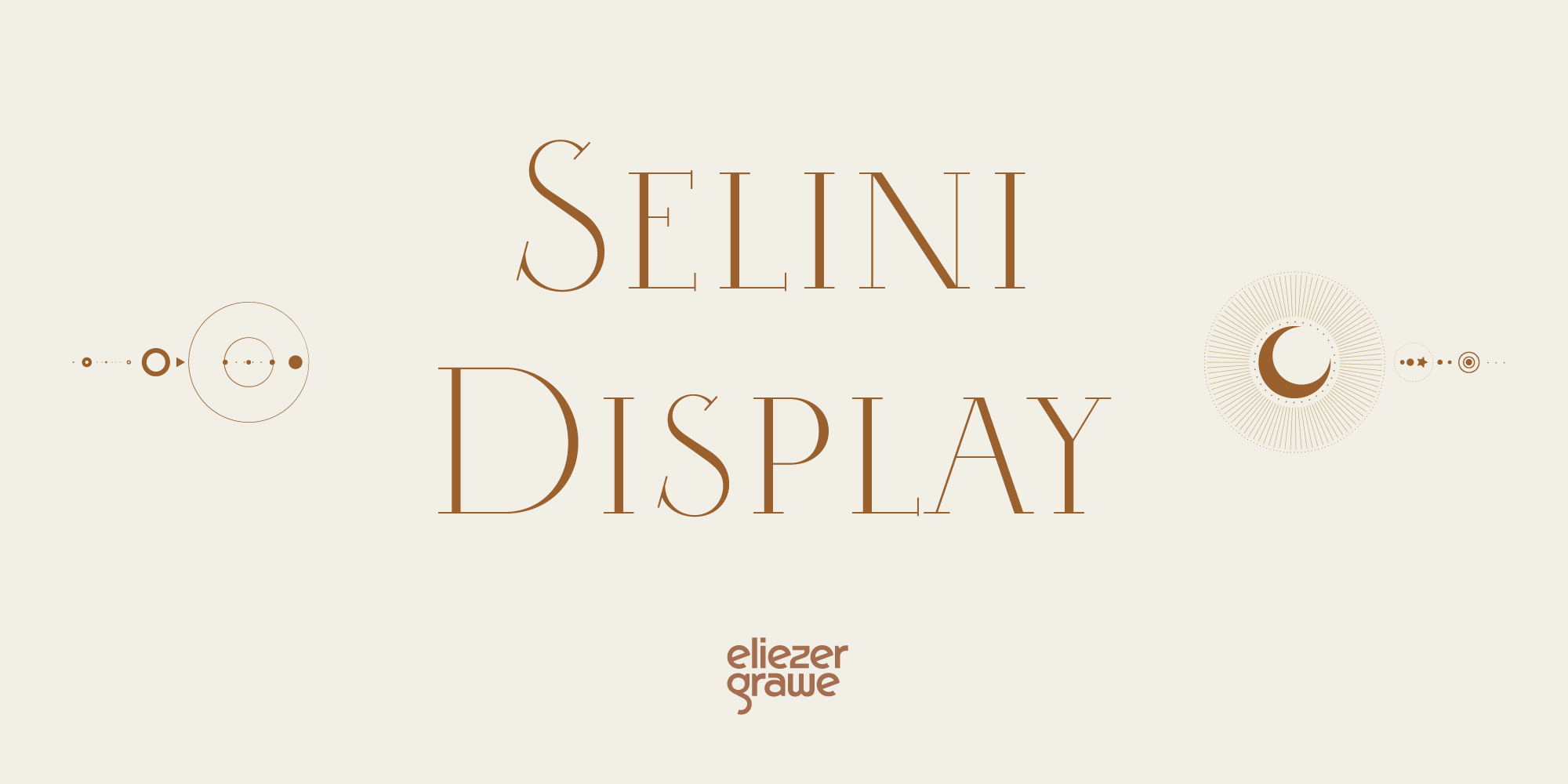
Selini Display Font is perfect for magazine headlines, fashion advertising, luxury product campaigns, editorial layouts, poster designs, brand identity systems, contemporary art exhibitions, high-end packaging, architectural signage, and sophisticated marketing materials. This striking typeface excels in projects that require visual impact, elegance, and commanding presence.
What makes Selini Display Font exciting is its powerful ability to command attention while maintaining sophisticated elegance through bold yet refined letterforms designed specifically for large-scale applications. The font features dramatic contrast, architectural precision, and confident character presence that creates immediate visual hierarchy. Its commanding personality captures the essence of modern luxury while ensuring exceptional legibility at display sizes, making it perfect for brands that want to make bold statements without sacrificing refinement.
Selini Display Font includes comprehensive font families such as Regular, Bold, Black, Italic, Condensed, and Extended variants. Each family member maintains the distinctive display character while providing different weights and proportions to create powerful typography hierarchies and versatile large-format design solutions.
This premium display typeface serves as an outstanding choice for designers working in fashion, luxury branding, and high-impact advertising sectors. Selini Display Font Free Download provides exceptional value for art directors, brand designers, and creative agencies specializing in premium visual communication. The font's commanding presence makes it particularly suitable for billboard advertising, magazine covers, luxury retail environments, and prestigious brand campaigns.
Whether you're developing brand identity for luxury companies, creating advertising campaigns for premium products, or designing editorial content for high-end publications, Selini Display Font delivers the perfect combination of impact and sophistication that makes headlines impossible to ignore and brands unforgettable.